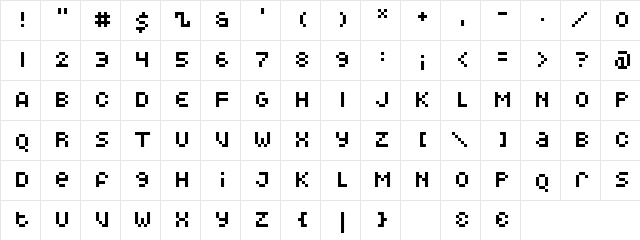
EightBits Regular
Design Context for EightBits Typeface
EightBits is a composed and adaptable typeface that performs quietly and consistently across a wide range of design contexts.